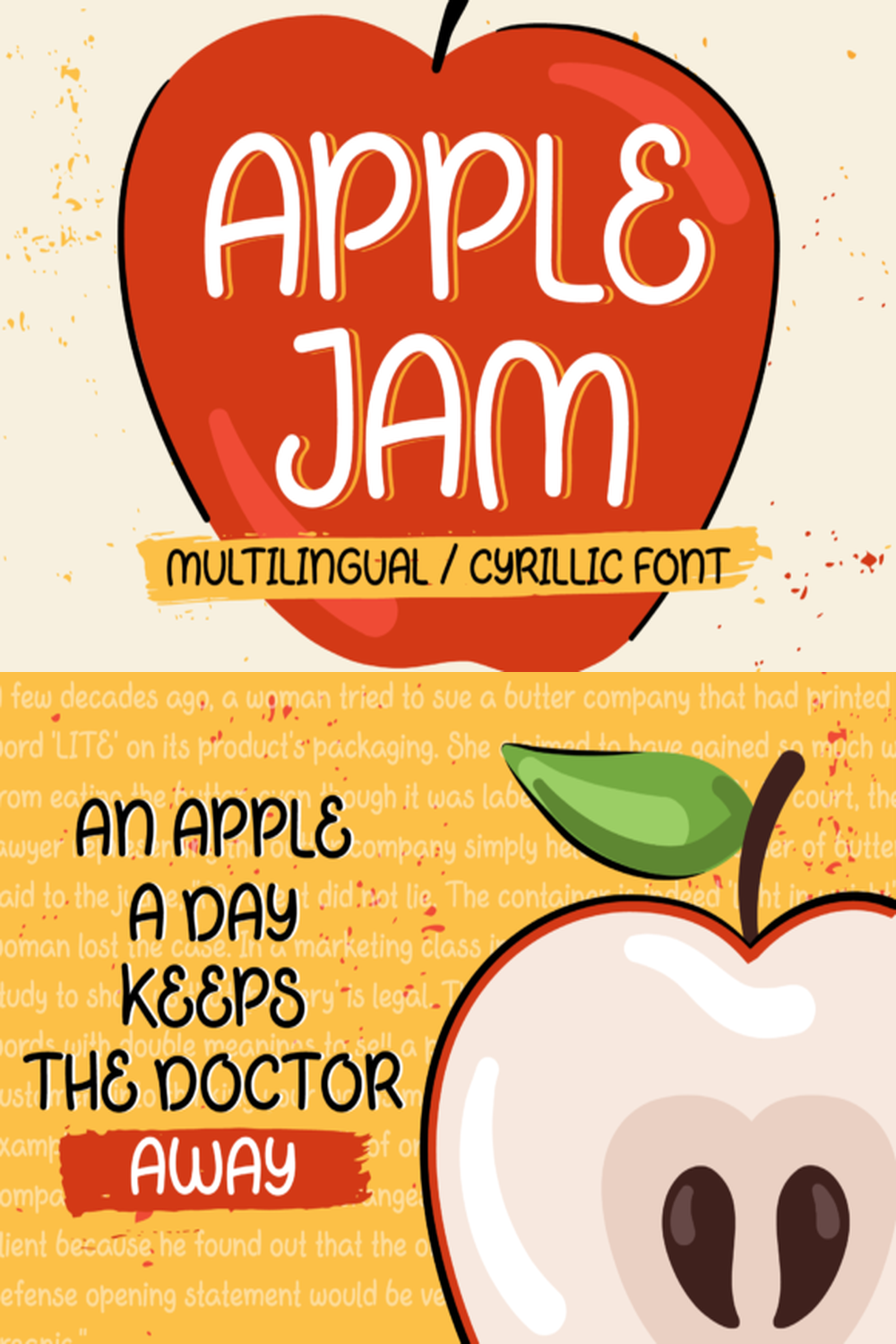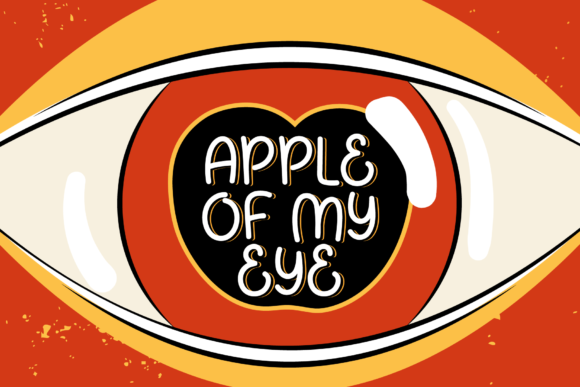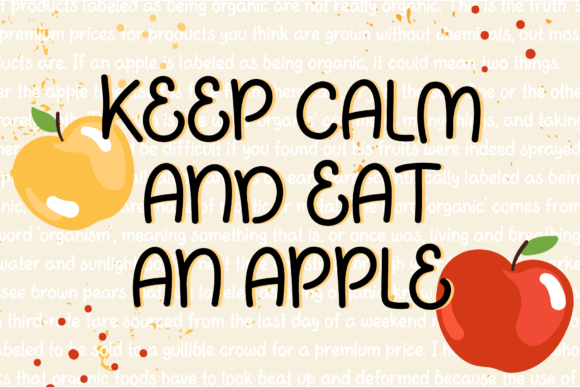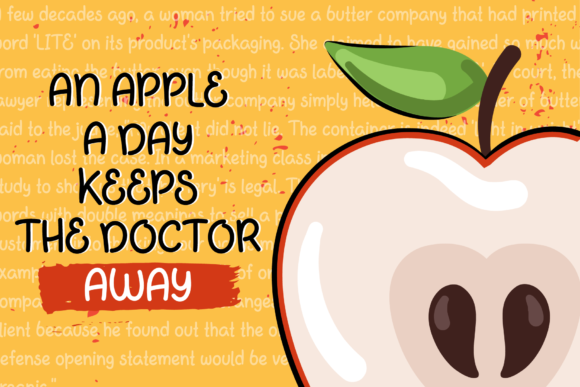
Apple Jam Font: A Cute Handwritten Font for Cricut & DIY Projects
About the Apple Jam Font
Add a touch of class to your work with the Apple Jam Font, a truly exceptional typeface. Apple Jam is a sweet and friendly handwritten font. Whether you’re looking for fonts for Instagram or calligraphy scripts for DIY projects, this font will turn any creative idea into a true piece of art!
Apple Jam’s friendly, informal style makes it ideal for projects requiring a warm, approachable feel. It excels in short headlines, social media graphics, invitations, and packaging designs where a handcrafted touch is desired. However, its less-structured nature makes it unsuitable for body text or lengthy paragraphs, and its legibility might suffer in small sizes or UI applications.
Pairing Apple Jam with a clean sans-serif like Open Sans or Lato provides a sophisticated contrast, balancing its playful energy. For a more vintage feel, consider pairing it with a serif font like Playfair Display. A simple geometric sans-serif would also work, providing a modern counterpoint to Apple Jam’s hand-drawn quality.
Apple Jam’s overall personality is best described as cheerful and approachable, with a hint of rustic charm. Its informal character makes it perfect for brands that emphasize warmth and authenticity.